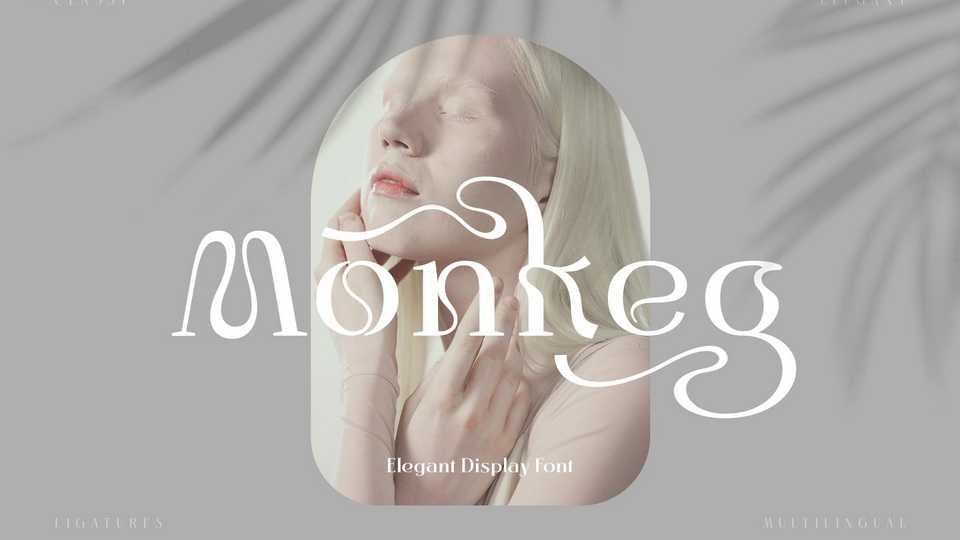
Download Monkeg font, a display typeface made with the concept of a modern appearance. Monkeg gives a unique impression because it has a curvy shape like waves that is charming and unique.